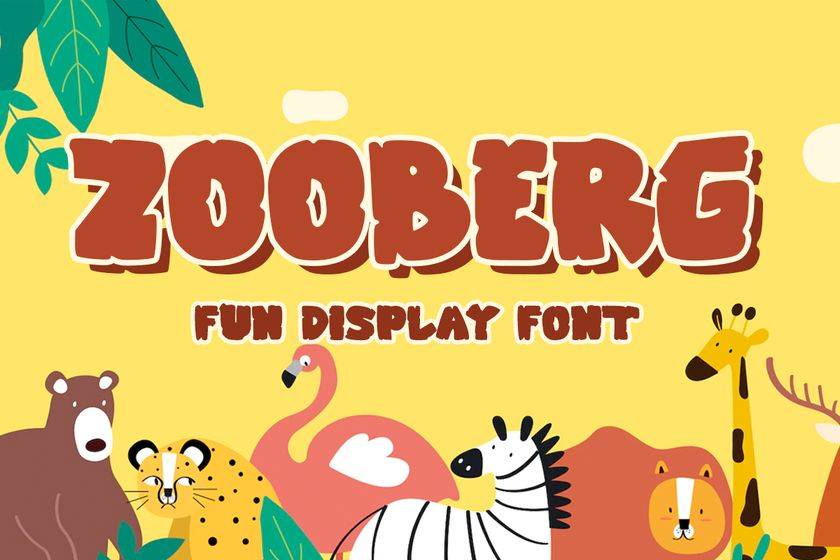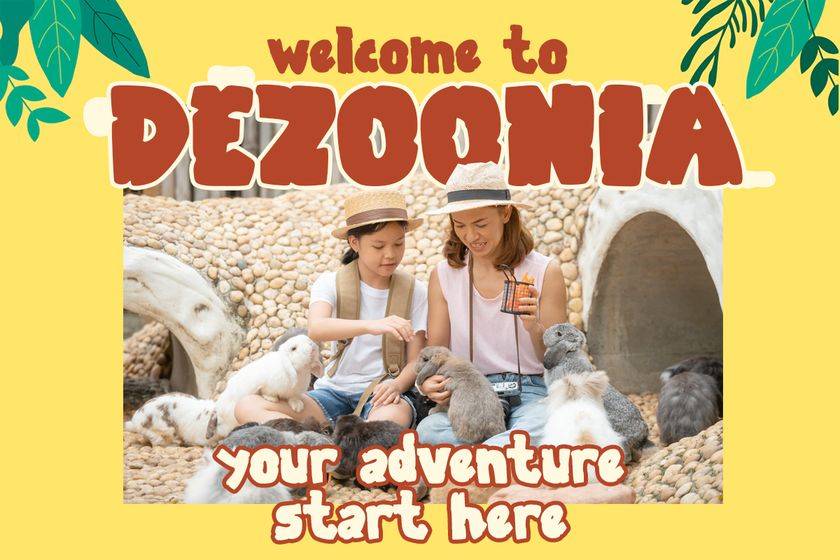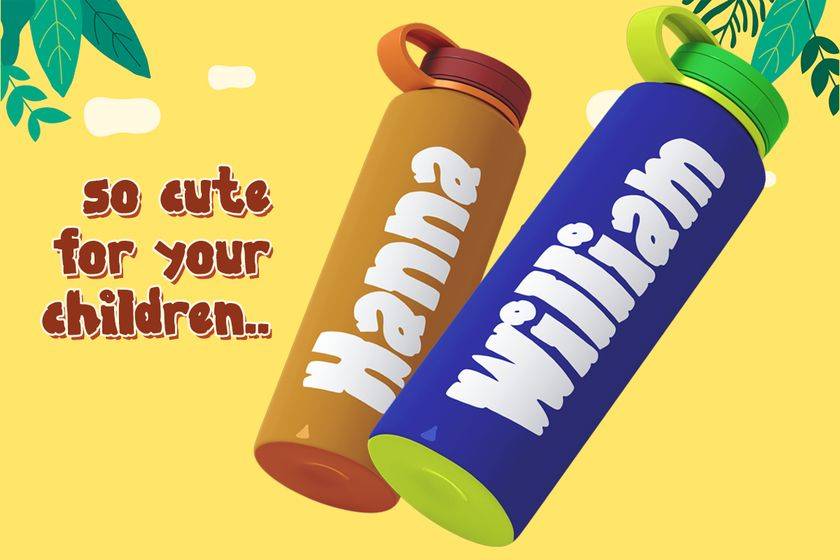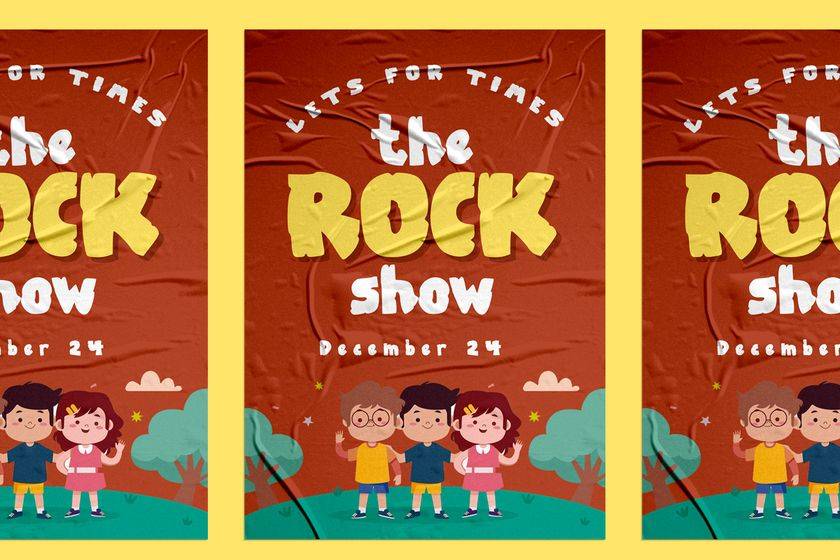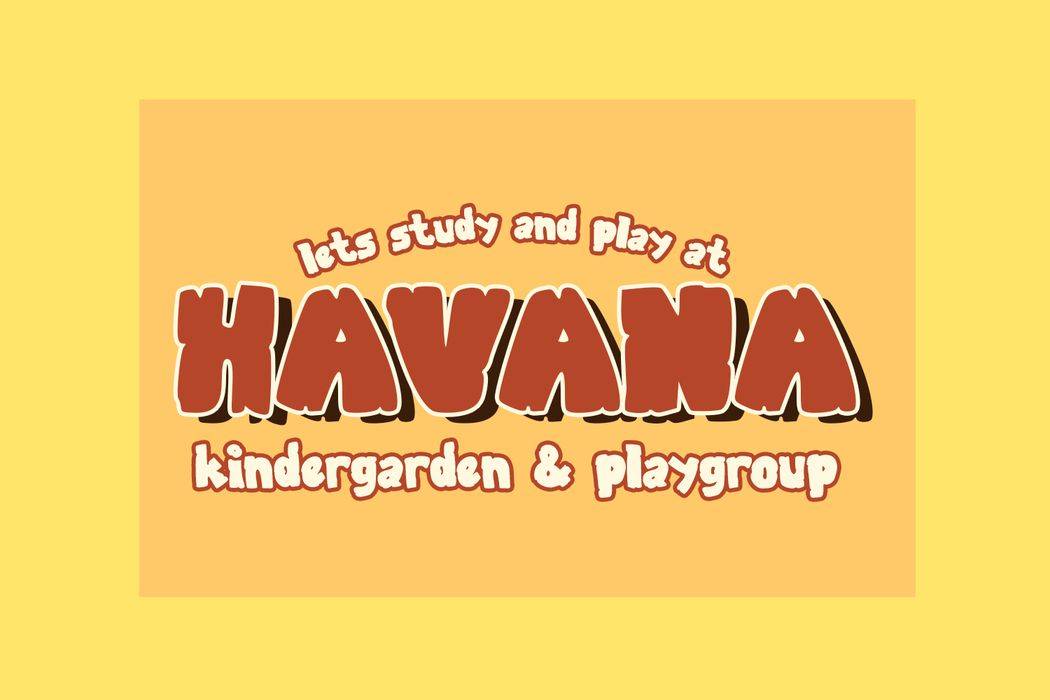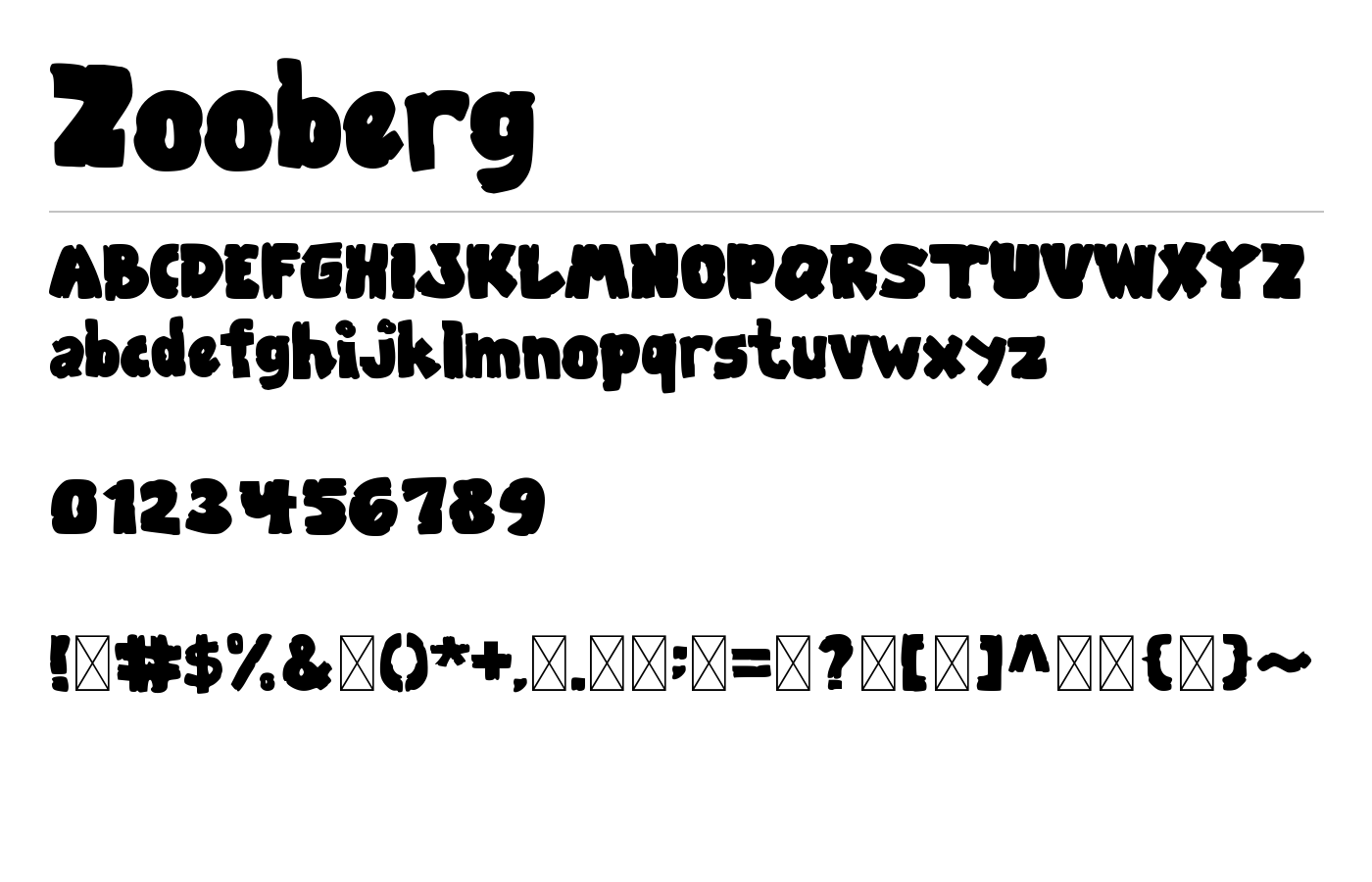
Zooberg is a bold and playful display font with chunky, irregular shapes that evoke a hand-crafted, whimsical feel. Its heavy weight and quirky letterforms make it perfect for fun, casual designs like children’s books, posters, and branding that aims to feel approachable and lively. This font shines in headlines and logos where a friendly and eye-catching style is needed.
Zooberg Font
About Zooberg Font
| Font family | Zooberg Font |
| Designer | Letterge Studio |